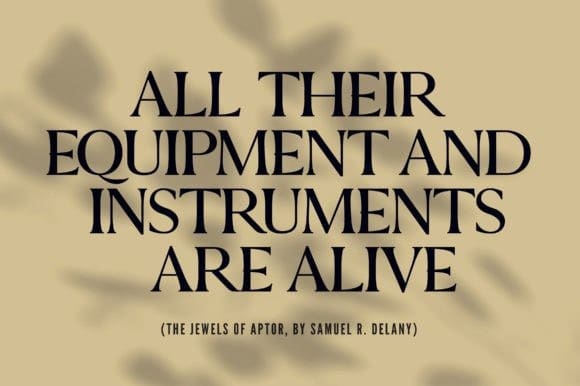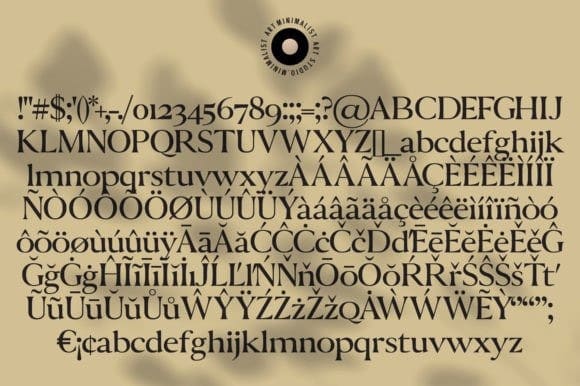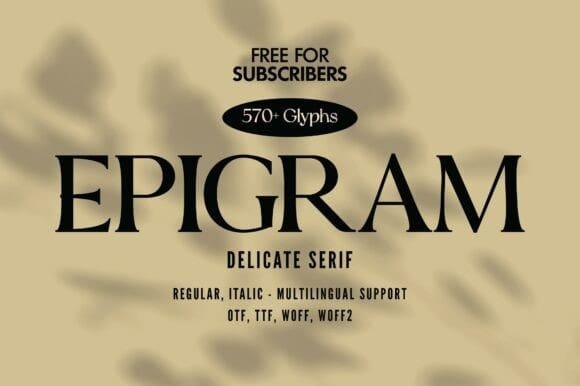
Epigram Font – our elegant and chic modern serif font, crafted with the utmost attention to detail to bring your designs to life. With over 570 meticulously designed glyphs, this font is versatile enough to use for any project, from branding to editorial design.
The sleek and minimalist design of this font exudes sophistication, making it perfect for modern designs that demand attention. The sharp and clean lines of the font create a sense of order and balance, while the serifs add a touch of elegance and refinement.
This font comes with full multilingual support, so you can use it for projects in a variety of languages. Its extensive glyph set includes accents, ligatures, and alternate characters, giving you the freedom to create unique designs that stand out.
Whether you’re designing a website, a book cover, or a marketing campaign, this font is the perfect choice to add a touch of sophistication and style to your work. With its elegant, chic, and minimalist design, this modern serif font is sure to impress.